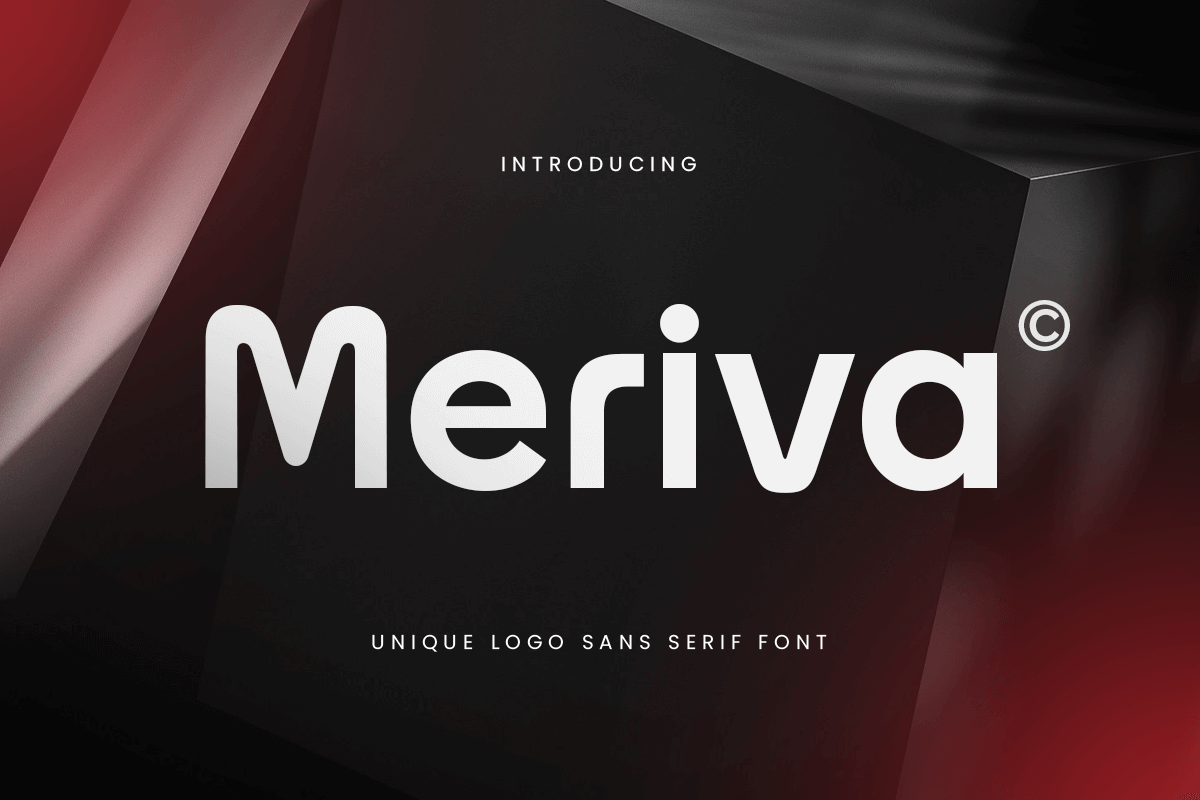
Meriva
-Unique Logo Sans Serif FontMeriva - Unique Logo Sans Serif Font
Meriva font blends clean geometric shapes with subtle quirks, creating a modern sans serif font that feels fresh, sophisticated, and versatile. Ideal for logo design, brand identity, product packaging, fashion, and tech startups, Meriva font brings a confident and distinctive edge to any visual concept.
Its balanced letterforms are crafted to ensure clarity and uniqueness, making it a strong choice for designers who value precision and style. Whether used in bold headers or delicate layouts, Meriva font adapts effortlessly while maintaining a strong brand presence.
Refine your brand with Meriva—a sans serif font that’s equal parts modern, minimal, and memorable.
Meriva Unique Logo Sans Serif Font Features:
Clean and Unique Sans Serif Style